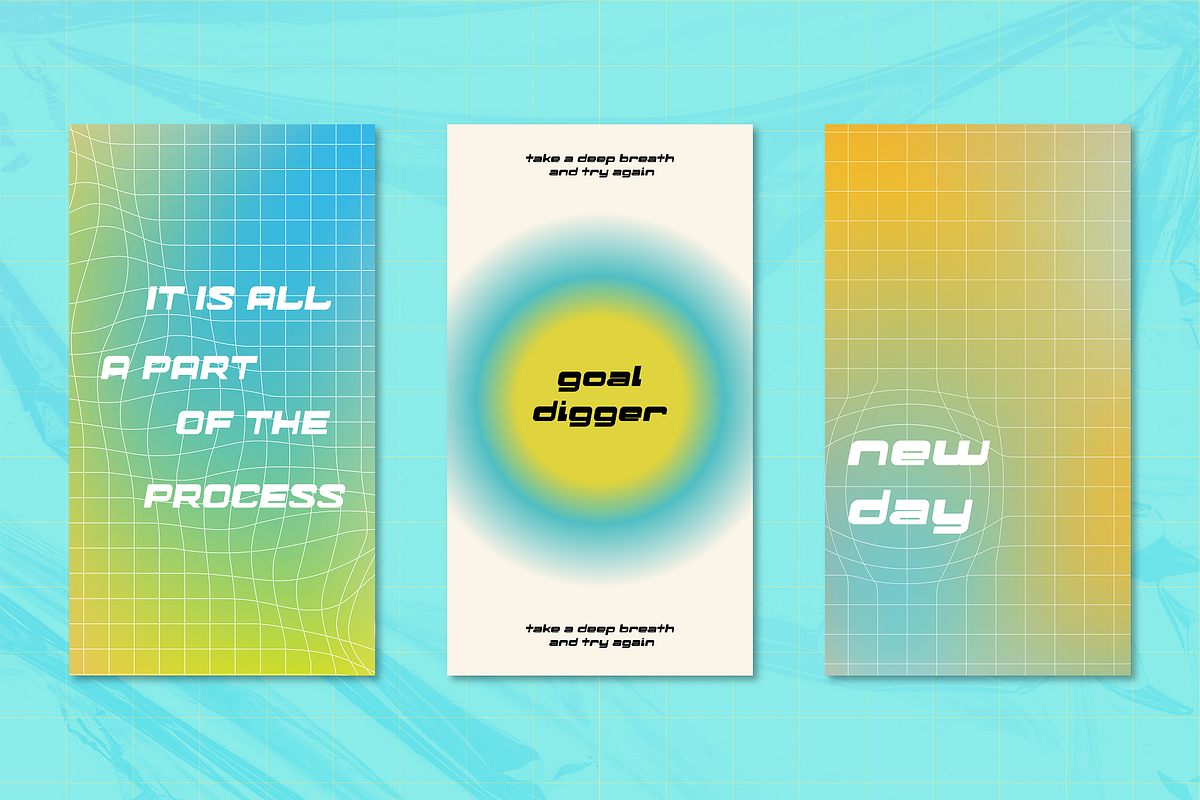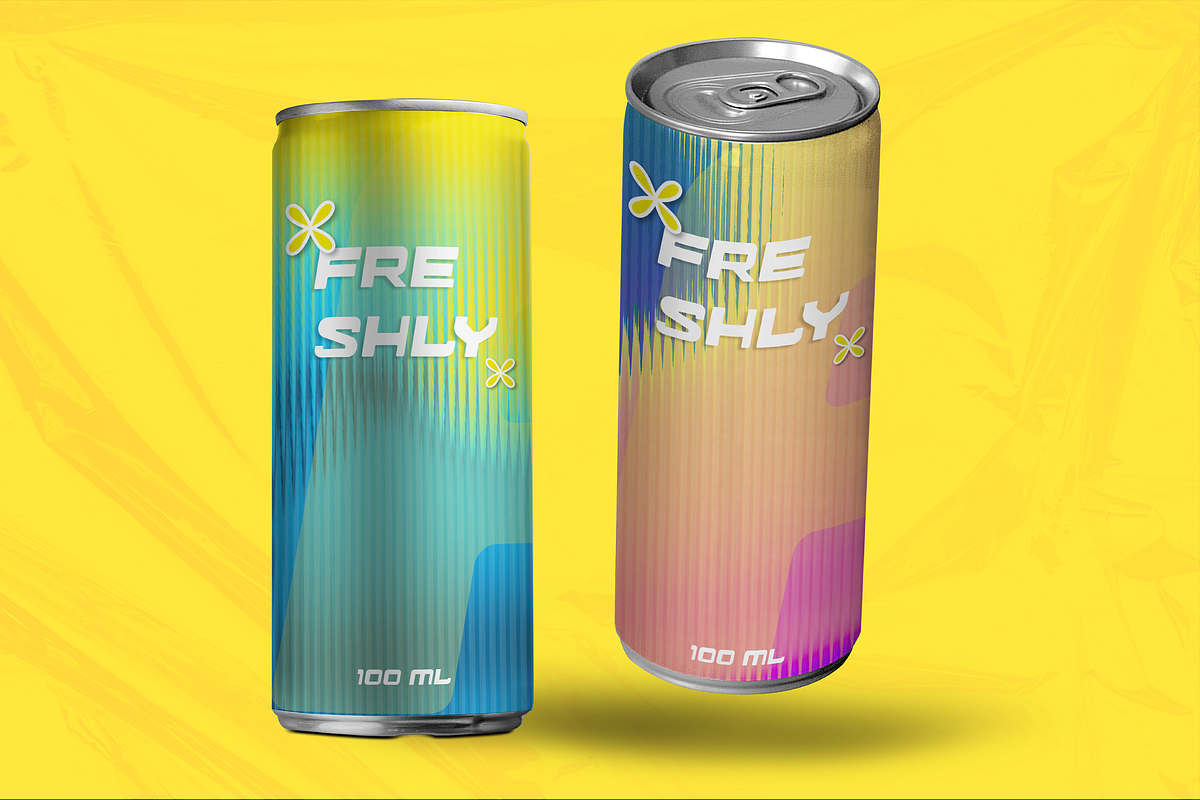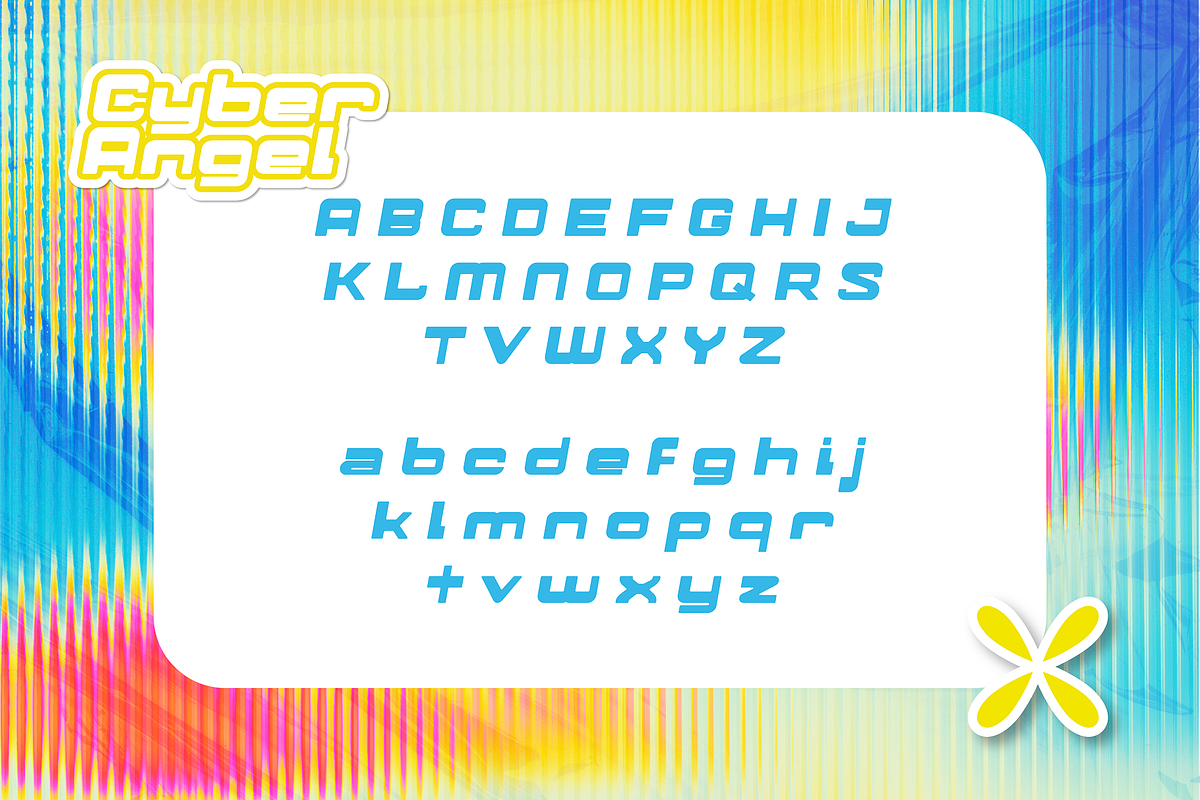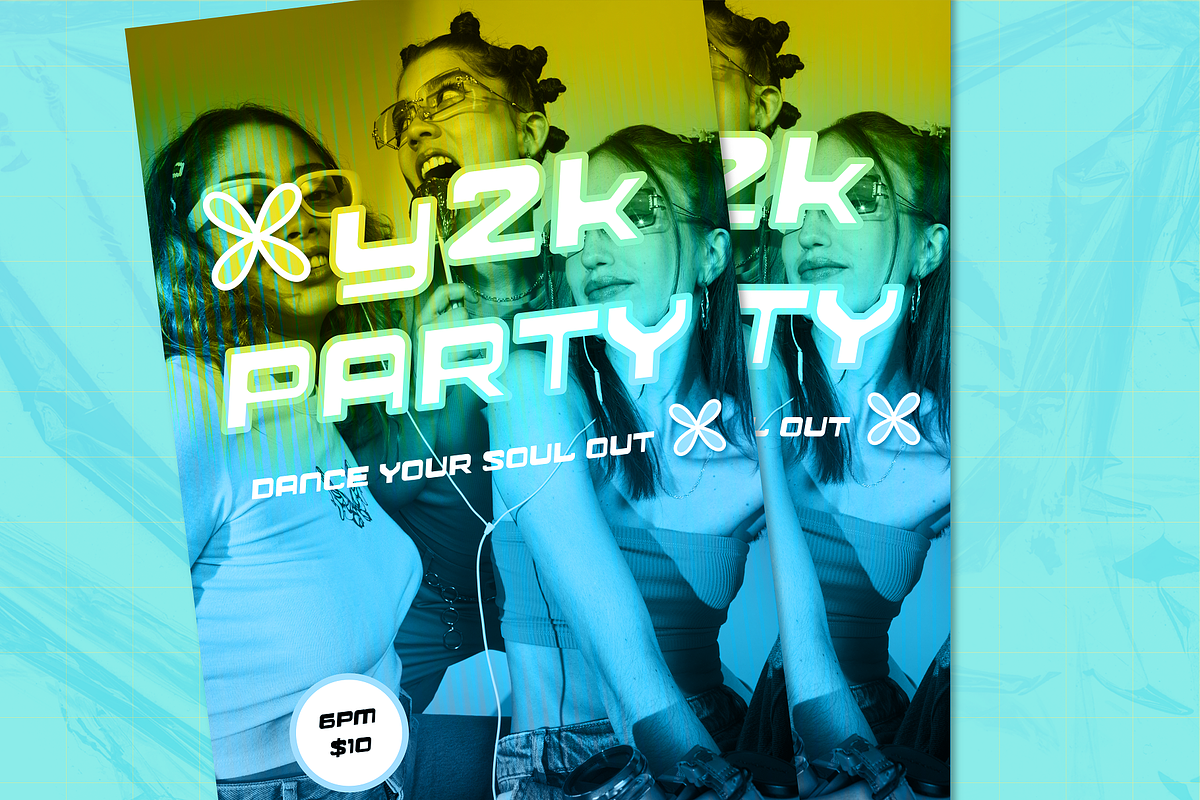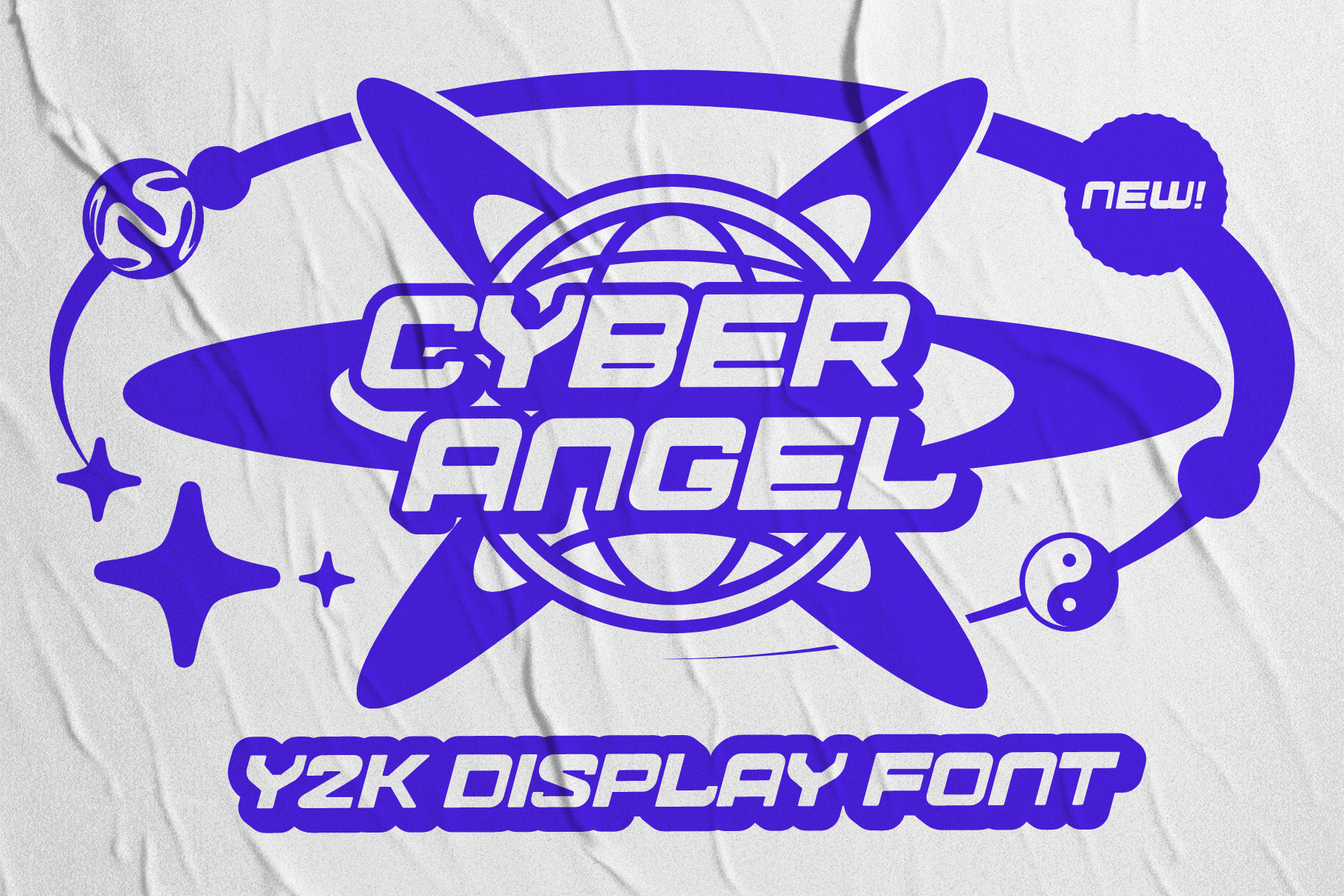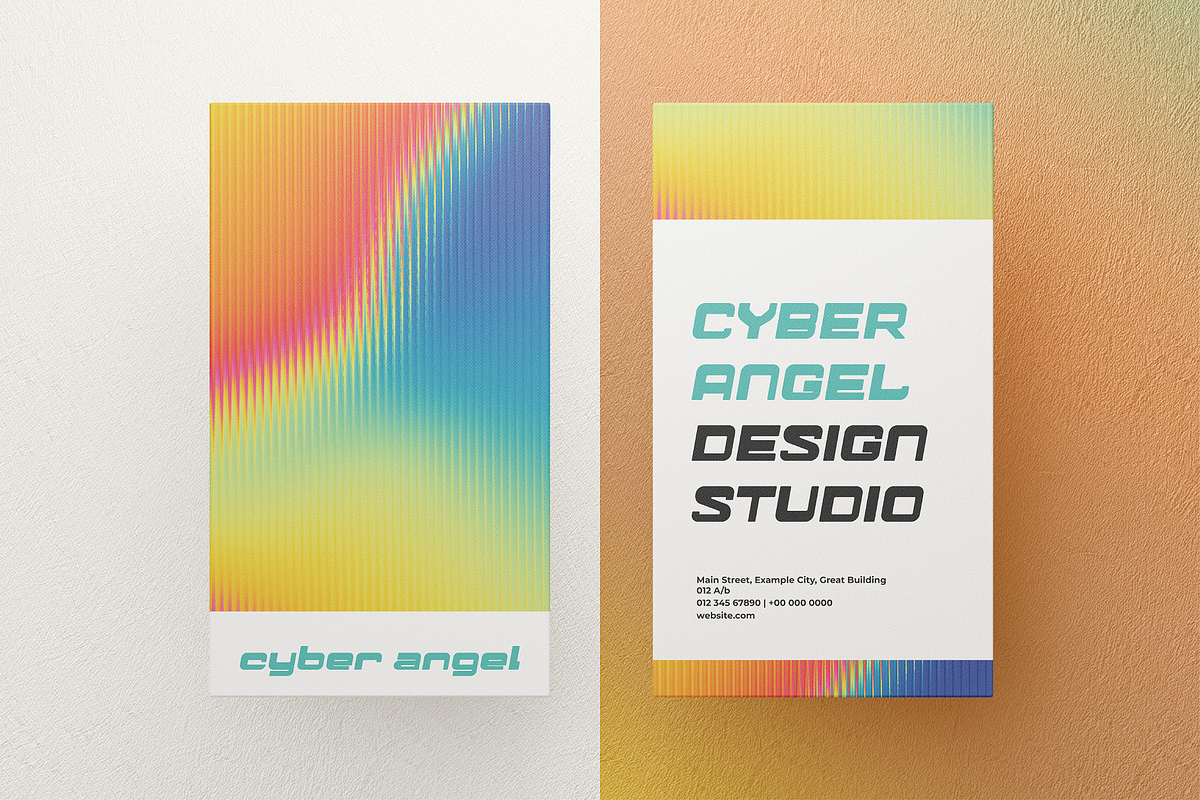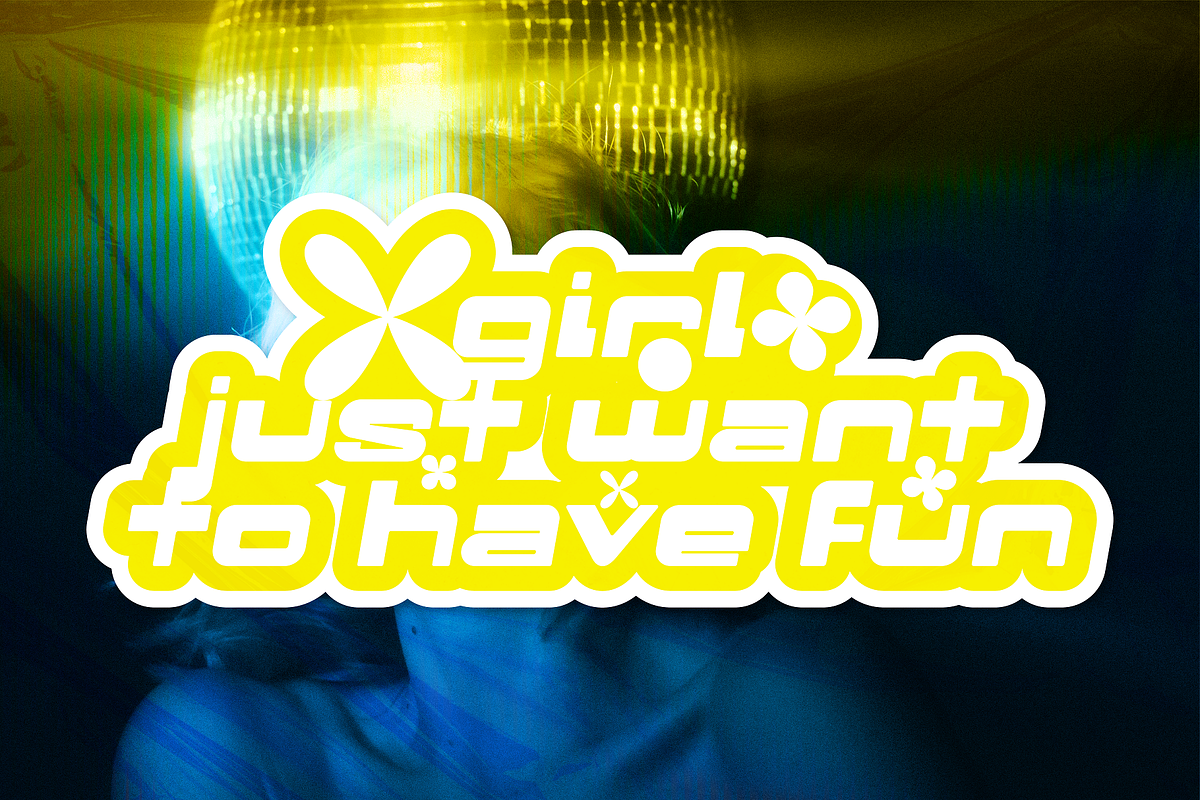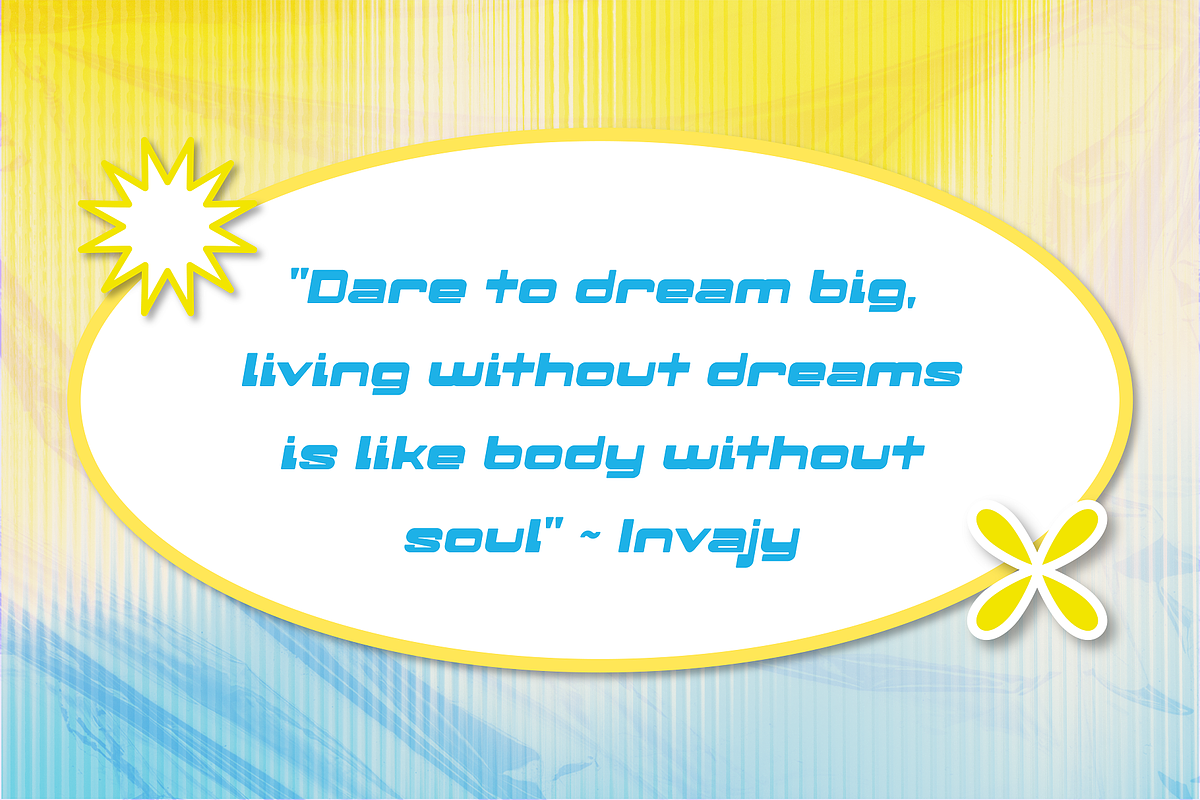
Cyber Angel Y2K Logo Font
Cyber Angel is a powerful and futuristic typeface that embodies the cutting-edge spirit of the 2000s. Its sleek lines and angular curves evoke the speed and energy of the digital age, while its bold, sans-serif letters communicate confidence and strength.
This font is perfect for designers looking to add a touch of sci-fi flair to their projects, whether it's a website, a logo, or a product label. With Cyber Angel, you'll be able to create designs that are both nostalgic and forward-thinking, inspiring awe and admiration in all who see them.